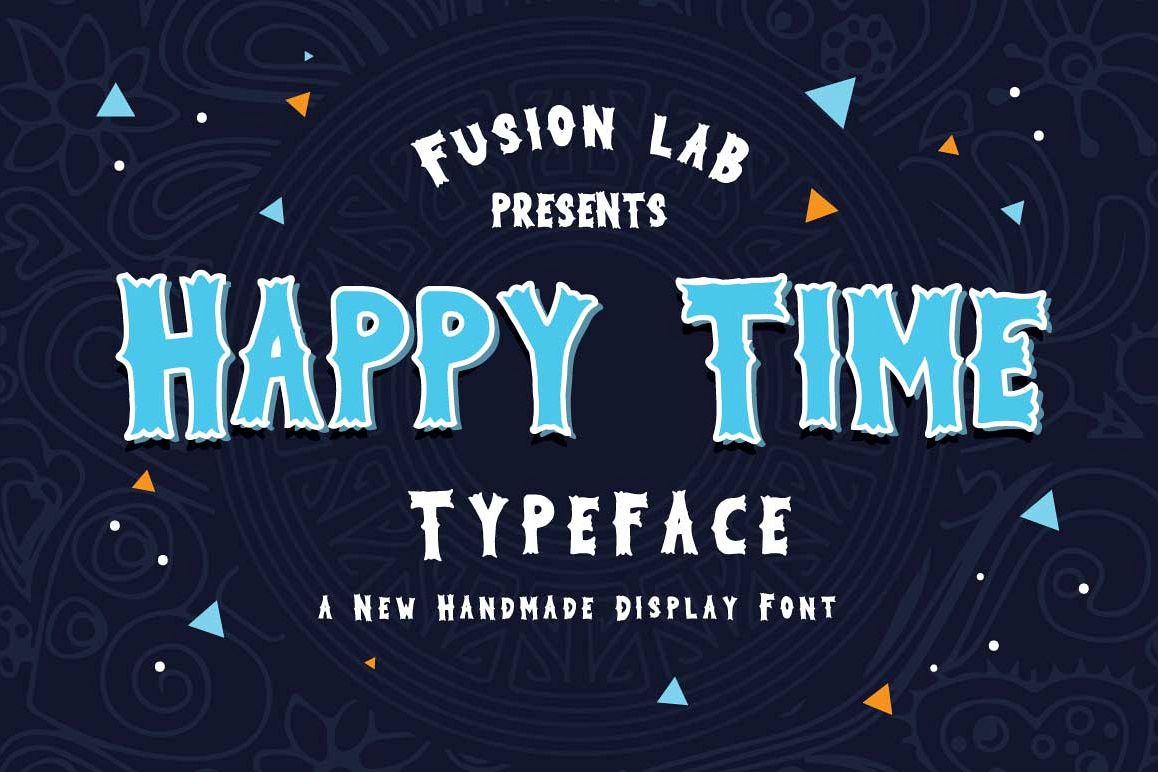
Happy Time Typeface
Happy Time Typeface is a fun display font intended to use in old school, retro and vintage design styles. It is suitable for poster, lettering, greeting card, t-shirt design etc. This font contains with special ornamental uppercase that can be used to create a stand out and attractive message.Happy Time Typeface font comes with the alternative characters which can be accessed by using OpenType savvy programs such as Adobe Illustrator and Adobe InDesign.